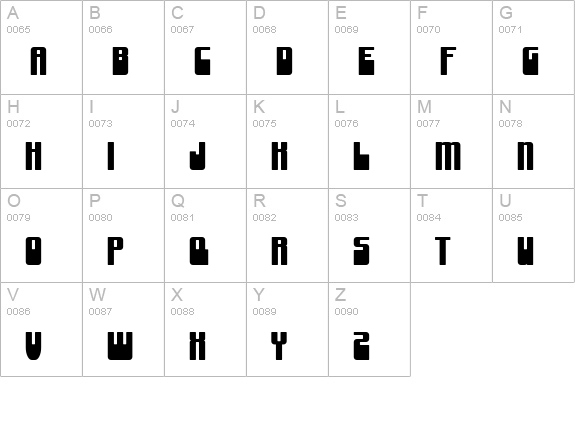
SF Groove Machine Upright Font Details
Introducing SF Groove Machine Upright font, a versatile and dynamic typeface that embodies the essence of futuristic science fiction. This font is the perfect fusion of sleekness and edginess, designed to captivate and inspire. With its bold and modern appearance, SF Groove Machine Upright font is sure to make a statement in any project. Its clean lines and sharp angles give it a contemporary aesthetic, while its unique letterforms add a touch of individuality. Whether you're designing a movie poster, creating a logo, or crafting a sci-fi inspired website, this font is the ideal choice to bring your vision to life. One of the most exciting features of SF Groove Machine Upright font is that it is available for free download at FontsMarket.com. This means that you can easily access this cutting-edge typeface without breaking the bank. It's a fantastic opportunity to enhance your design toolbox with a font that is both visually striking and freely accessible. SF Groove Machine Upright font's versatility extends beyond its appearance. With a wide range of weights and styles, this font allows you to experiment and find the perfect fit for any project. Whether you want to emphasize a headline or create a subtle text effect, this font has you covered, providing endless possibilities for your creative endeavors. In addition to its aesthetic appeal and versatility, SF Groove Machine Upright font is also highly legible, ensuring that your message is clear and easily understood. Its carefully crafted letterforms ensure that each character is distinct and easily recognizable, making it a reliable choice for both print and digital media. So why wait? Take advantage of this unique opportunity to enhance your design projects with SF Groove Machine Upright font. Download it for free at FontsMarket.com and unlock a world of possibilities. Let your creativity flow and watch as your designs come to life with this dynamic and visually captivating typeface. Elevate your work to new heights with SF Groove Machine Upright font, the perfect fusion of futuristic style and practicality.